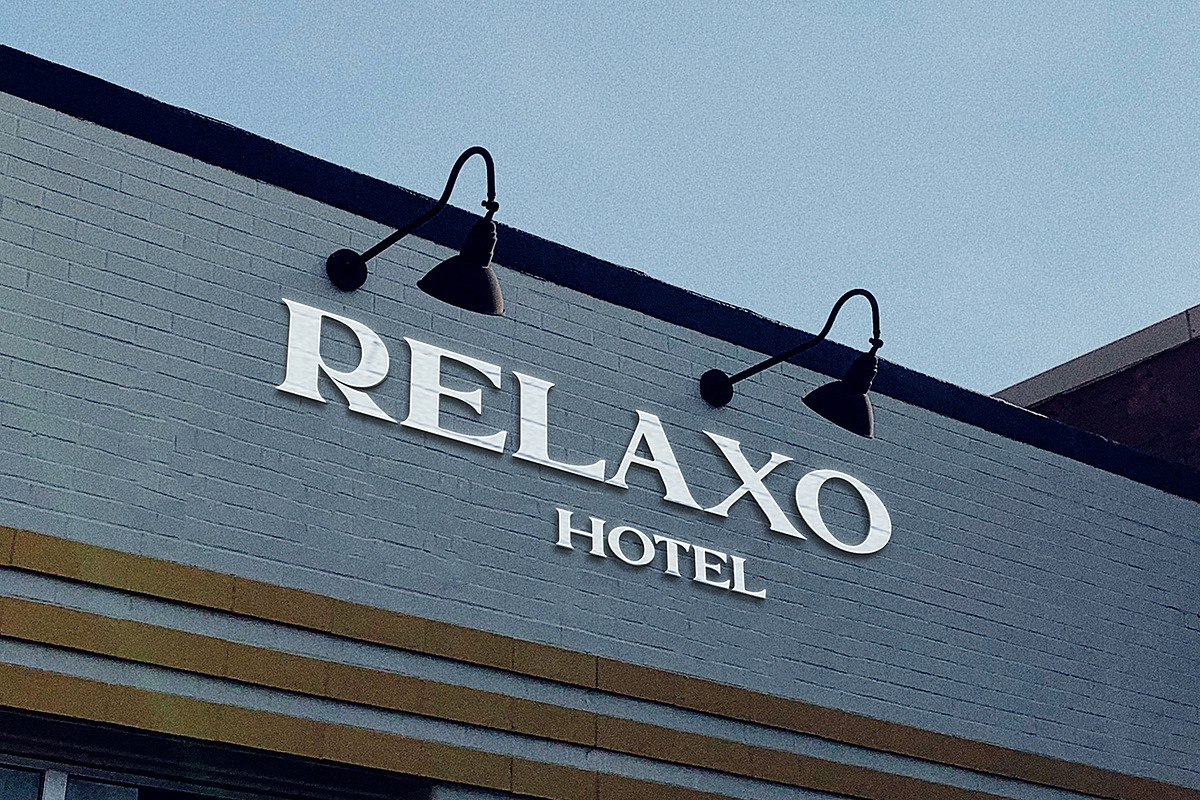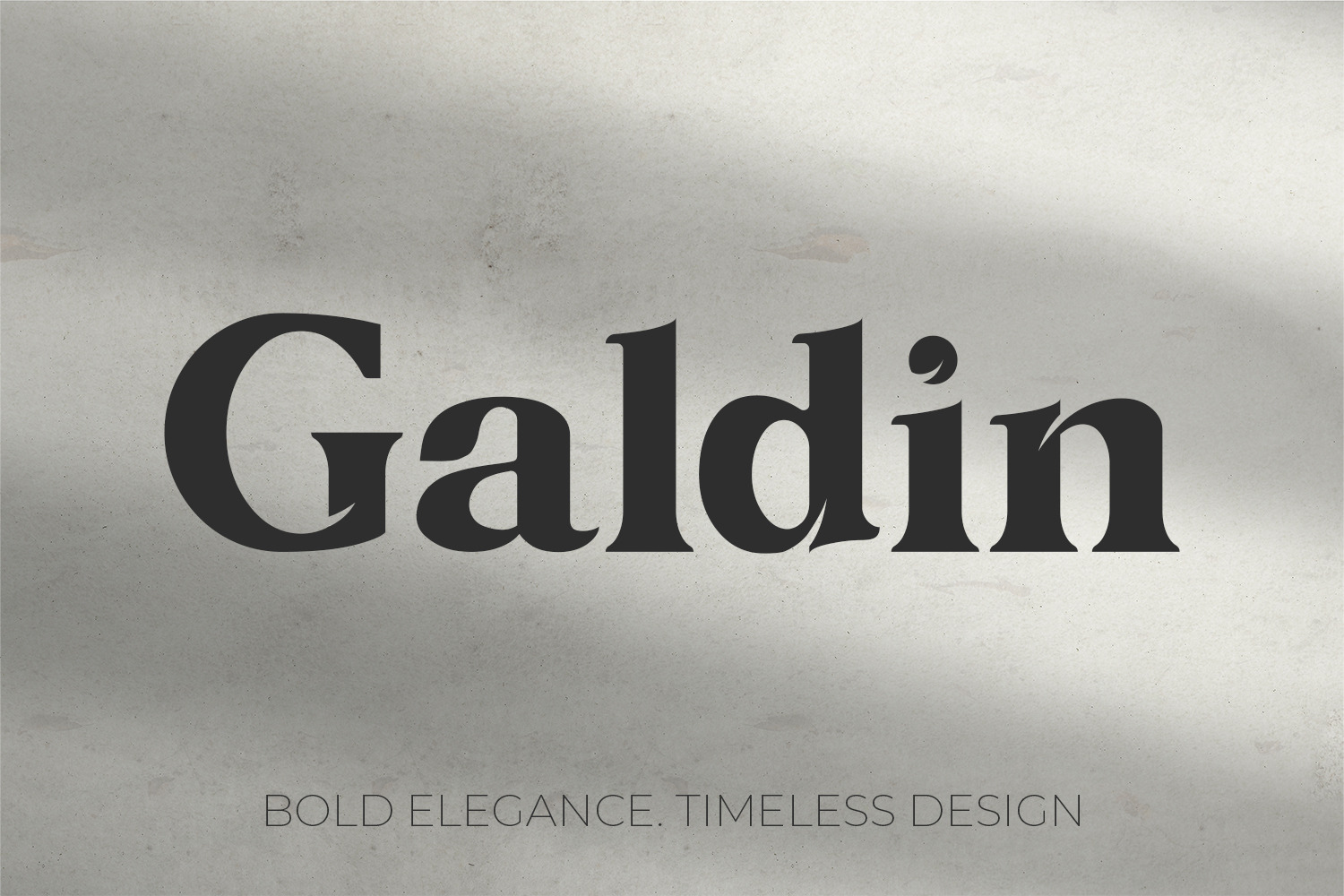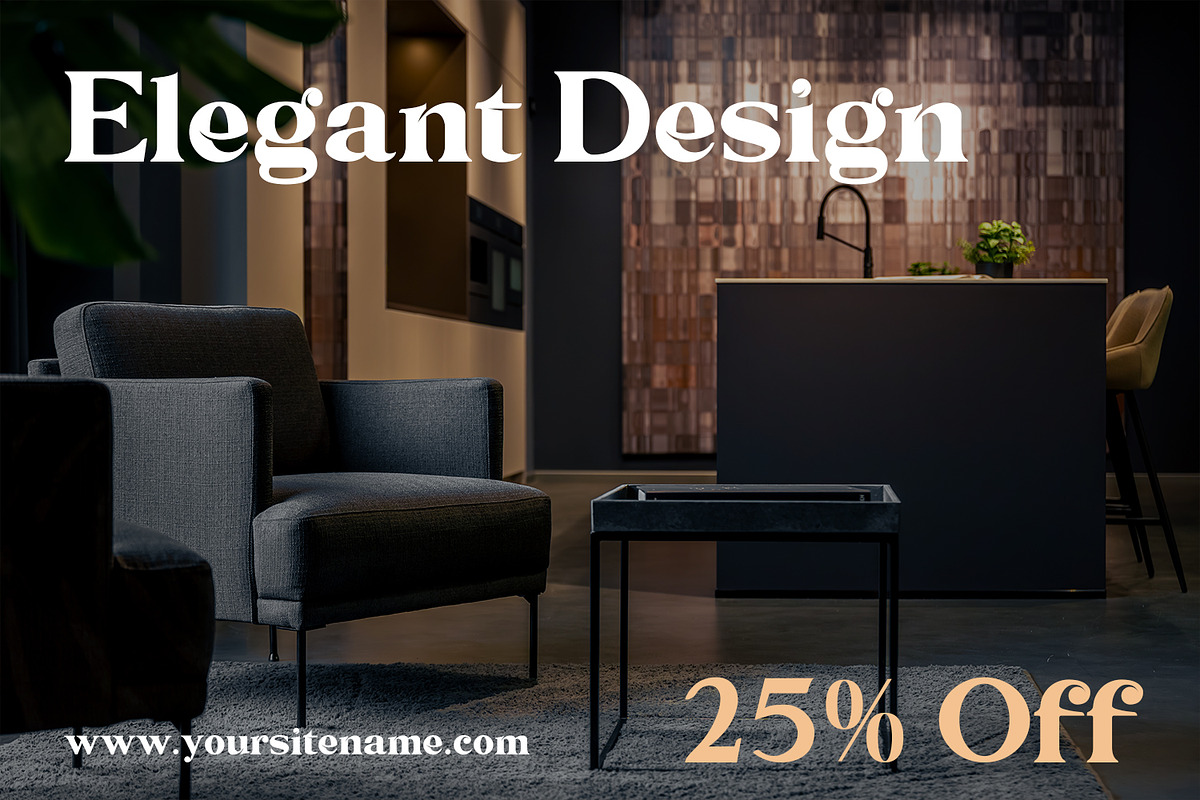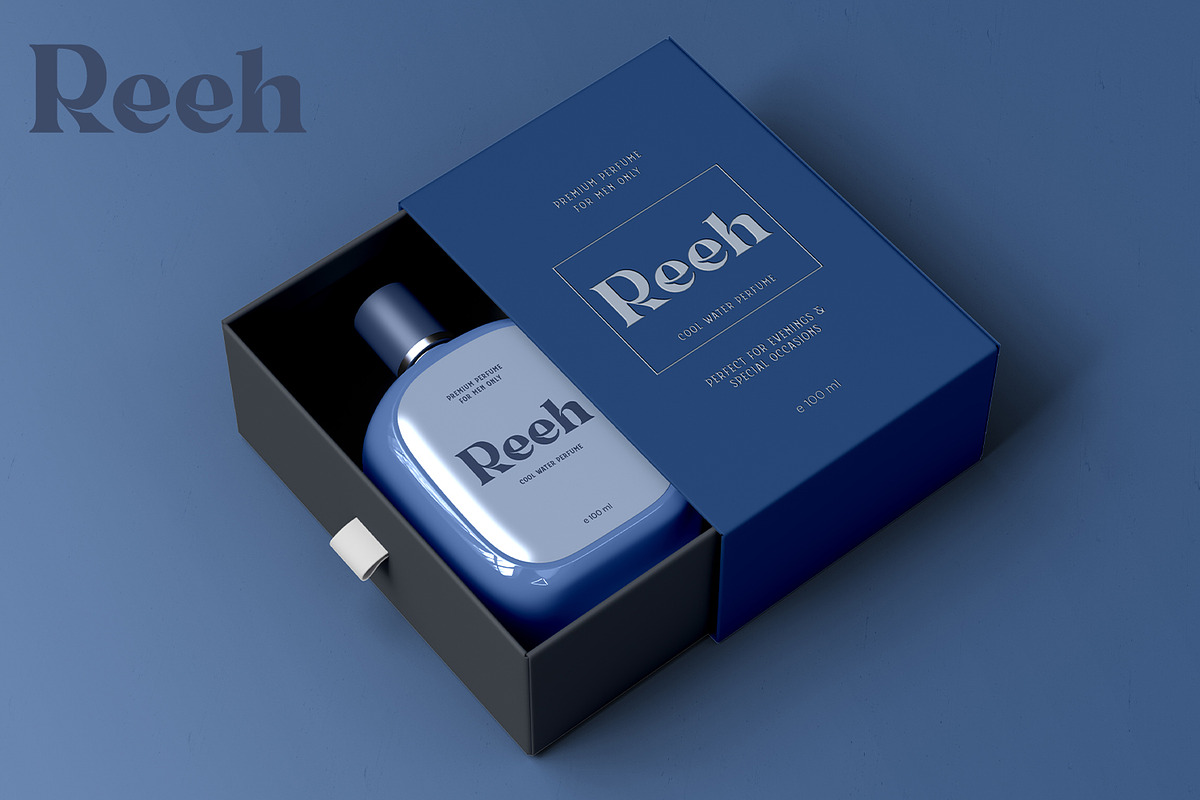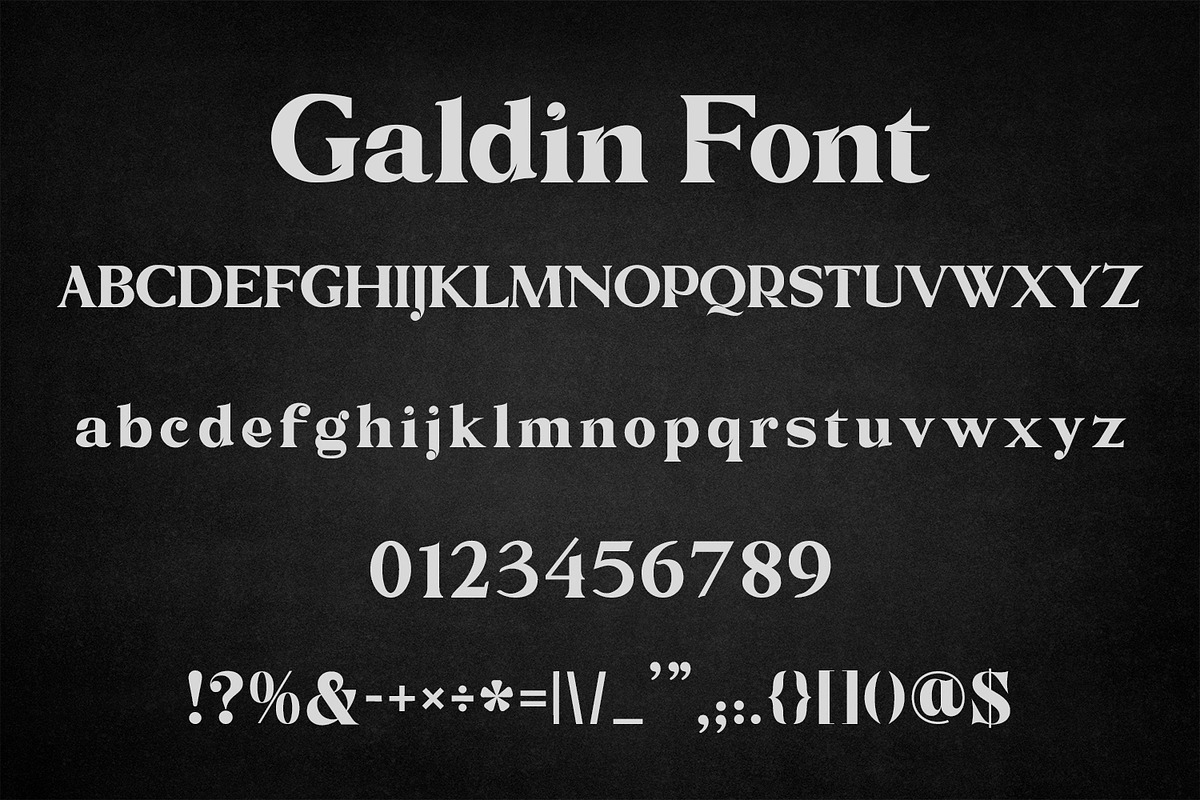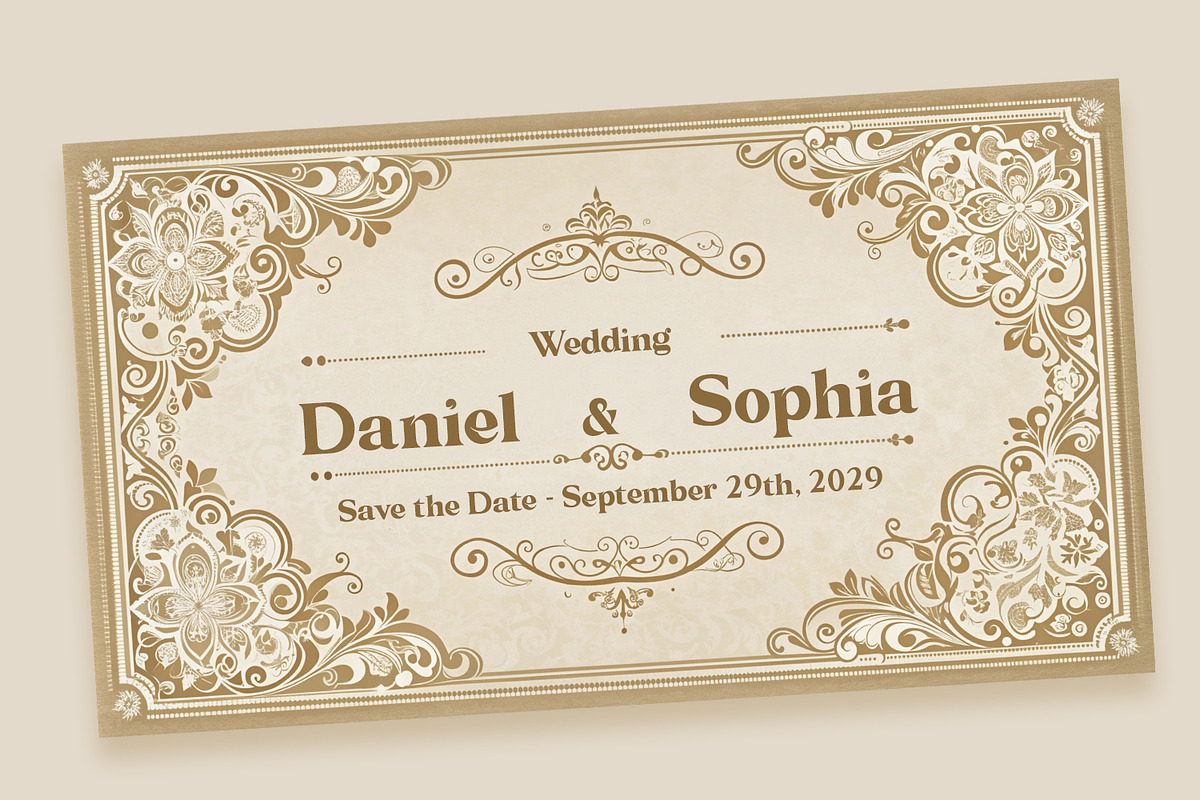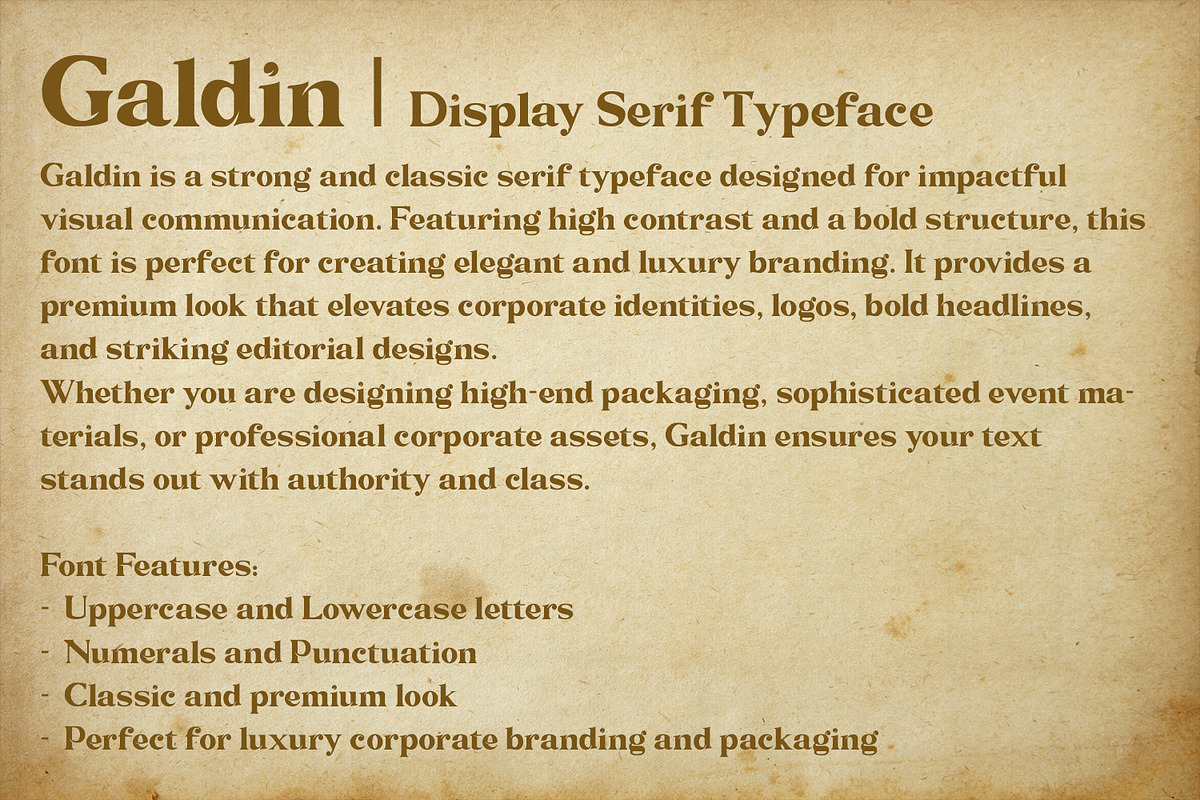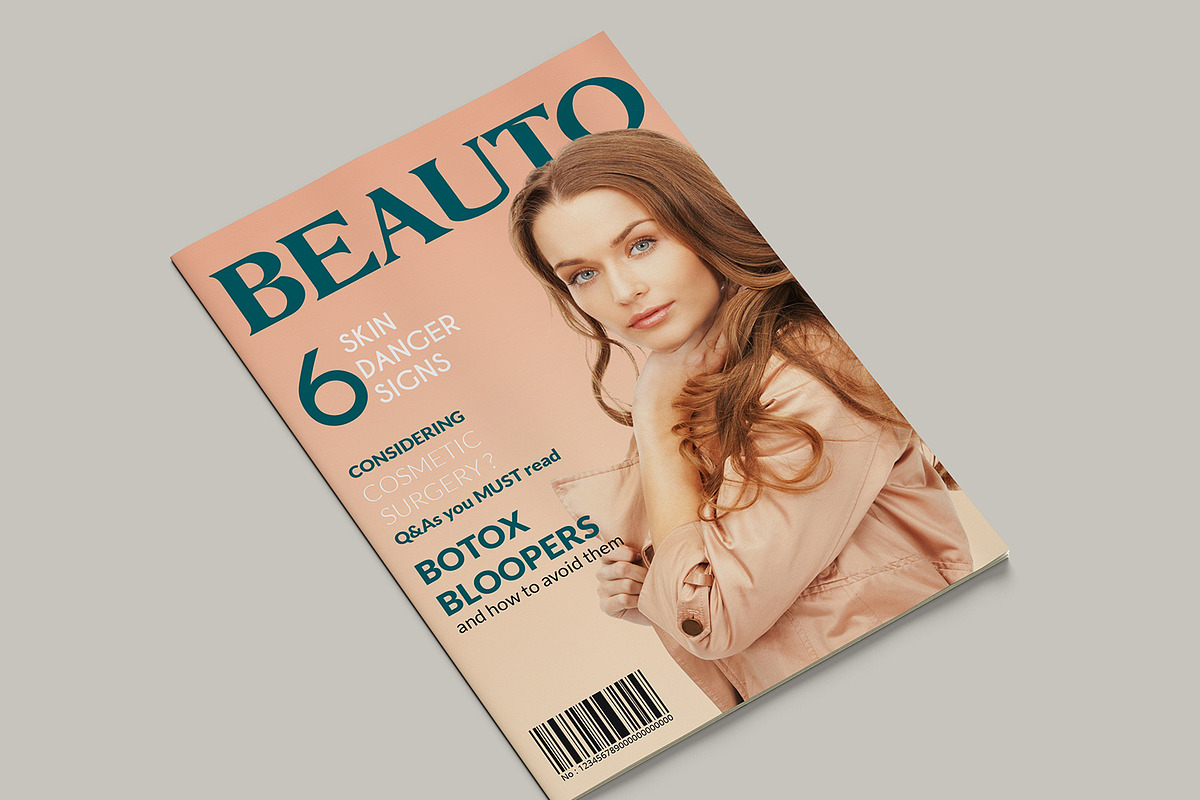
Galdin - Serif Font
Galdin is a bold serif typeface designed for strong visual impact. Featuring high contrast and classic letterforms, this font is perfect for luxury corporate branding, premium packaging, and elegant editorial layouts. It includes uppercase and lowercase letters, numerals, and punctuation, making it an ideal choice for high-end logos, sophisticated invitations, and professional headlines.